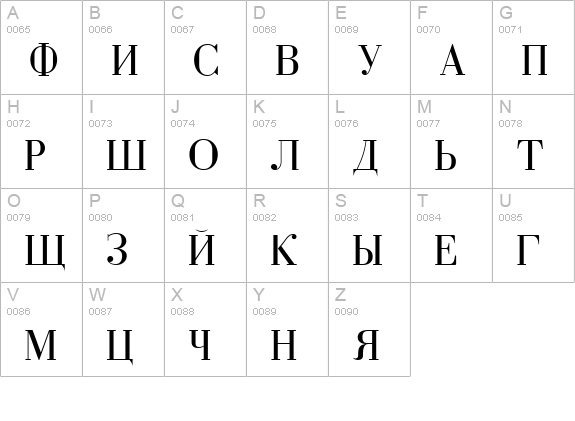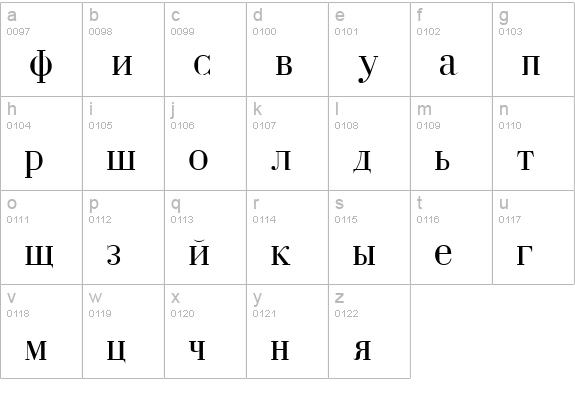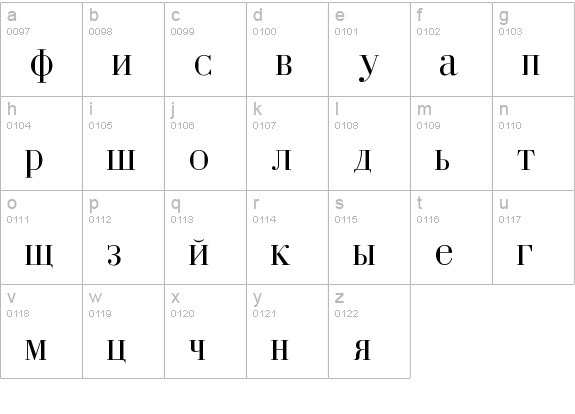
Dearborn Font Details
Dearborn font is a beautiful and versatile typeface that exudes elegance and sophistication. With its clean lines and modern yet timeless design, Dearborn is the perfect choice for a wide range of projects, from branding and packaging to editorial design and web content. Its sleek and stylish appearance makes it ideal for creating eye-catching headlines and sleek designs. What makes Dearborn font even more appealing is that it is available for free download at FontsMarket.com. This means that you can easily access this stunning font and use it in your projects without any cost. Whether you are a designer looking to add a touch of class to your work or a business owner seeking a professional and polished look for your brand, Dearborn font is sure to impress. Download Dearborn font today and elevate your designs to the next level.